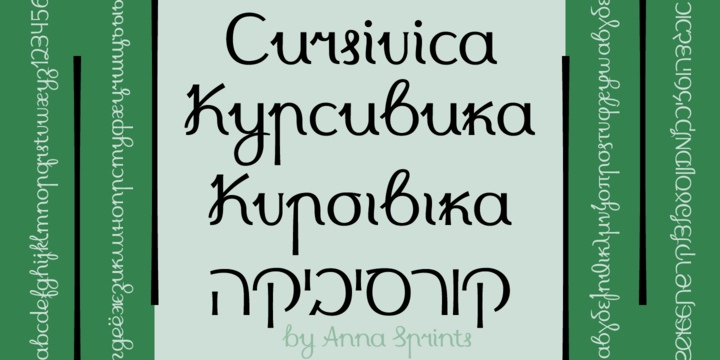
Cursivica Font
Cursivica Font is perfect for elegant wedding invitations, refined calligraphy courses, sophisticated personal correspondence, graceful greeting cards, luxury brand identity, educational handwriting materials, classical literature covers, distinguished certificates, cultured hospitality signage, and timeless formal documents.
Cursivica Font is exciting because it masterfully captures the essence of classical cursive elegance and refined penmanship, creating a typeface that embodies the lost art of beautiful handwriting, educational tradition, and the sophisticated grace of formal correspondence. This font brings academic authenticity and cursive sophistication to any project, making it ideal for educational institutions and refined brands that want to convey learning excellence, classical education, and the timeless beauty of properly taught cursive writing. Its educational character and elegant appeal create an atmosphere of scholarly refinement that resonates with audiences who appreciate traditional learning and beautiful penmanship.
Cursivica Font family includes regular, medium, and bold weights, plus educational flourishes, cursive ornaments, and classical decorative elements, providing designers with comprehensive tools for creating authentic cursive typography and educationally refined brand experiences.
This distinguished cursive typeface combines traditional penmanship principles with contemporary design functionality, making Cursivica Font Free Download a perfect choice for projects celebrating educational excellence and cursive tradition. The font's elegantly crafted letterforms feature classical proportions and cursive styling that reflect the disciplined beauty and intellectual significance of traditional handwriting education and formal penmanship.
Whether you're designing educational curriculum materials, classical wedding stationery, or refined cultural communications, Cursivica Font delivers unmatched cursive authenticity and educational appeal. The font excels in both intimate educational applications and larger academic environments where classical learning and penmanship tradition create meaningful educational experiences.
Educational professionals choose Cursivica Font for its ability to instantly communicate academic excellence and cursive tradition while maintaining the elegance essential for formal applications. The font's classical character makes it particularly effective for schools, educational publishers, and institutions valuing traditional learning.
Each character reflects the flowing artistry of classical penmanship, featuring cursive construction and educational proportions that create typography as beautiful and disciplined as master calligraphy, formal correspondence, and the finest traditions of cursive education.